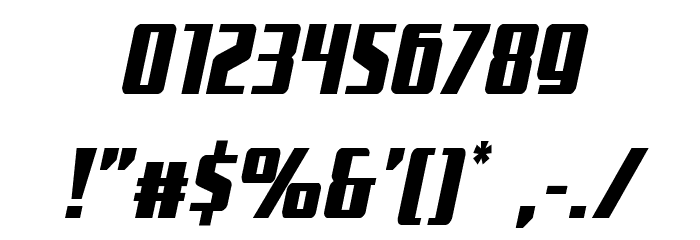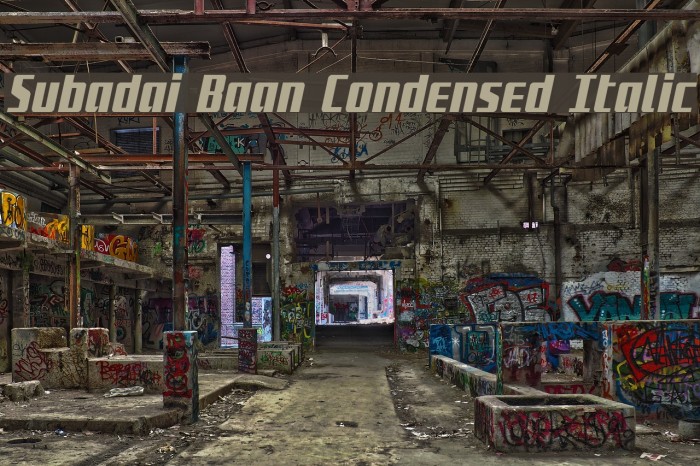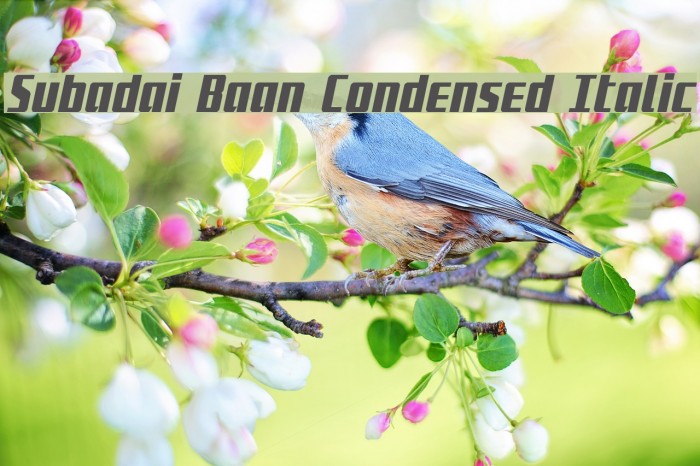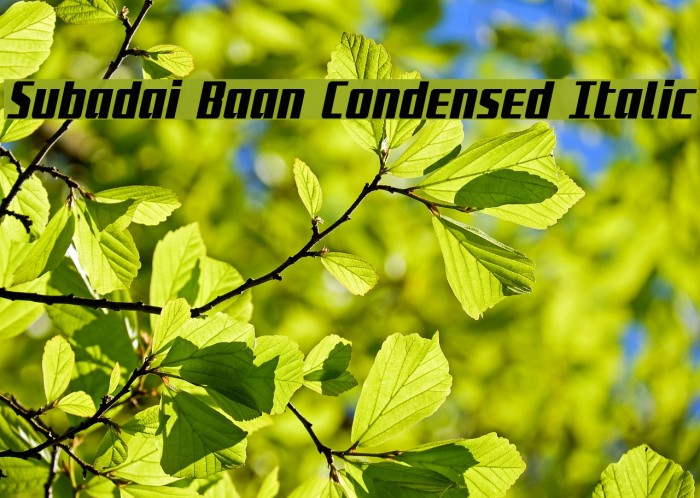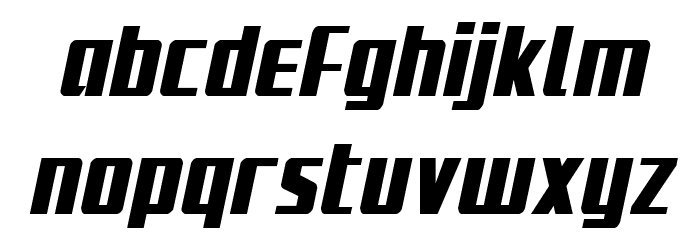
Subadai Baan Condensed Italic Font
This font features a bold and dynamic style with a condensed and italicized form. The characters are sharply angled, giving a sense of movement and energy. The uppercase letters are tall and narrow, while the lowercase letters maintain a consistent height, enhancing readability. Numbers and special characters follow the same angular and condensed design, ensuring uniformity across all glyphs. The font's strong presence makes it suitable for impactful designs where attention is key. Its modern and sleek appearance is ideal for projects that require a contemporary and assertive look.
A bold, condensed, and italicized font with a dynamic and modern style.
• Proposed Projects: Ideal for sports branding, dynamic posters, modern logos, and eye-catching headlines.
• Category: Sans-Serif
• Bold: Yes
• Italic: Yes
• Weight: Bold
• Width: Condensed
• Character Spacing: Tight
• Contrast: Medium
• Overall Style: Modern
• Use Case: Headlines, Logos, Posters